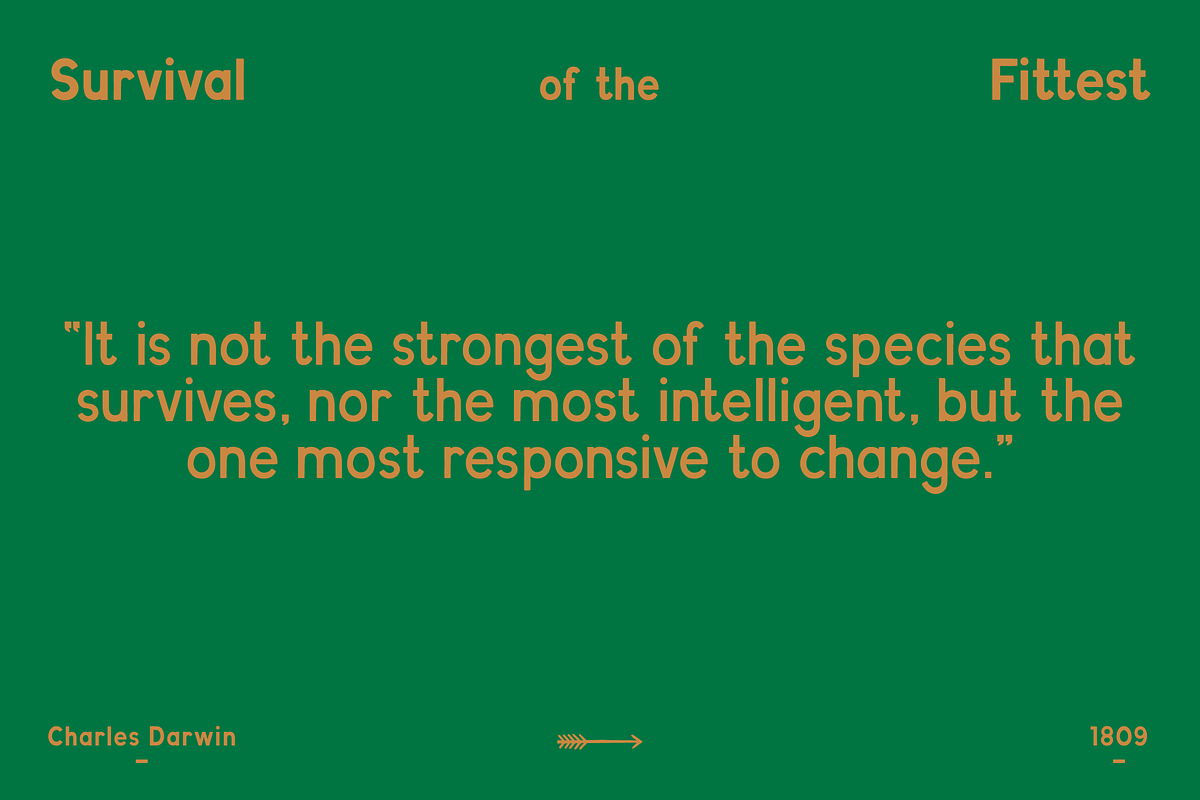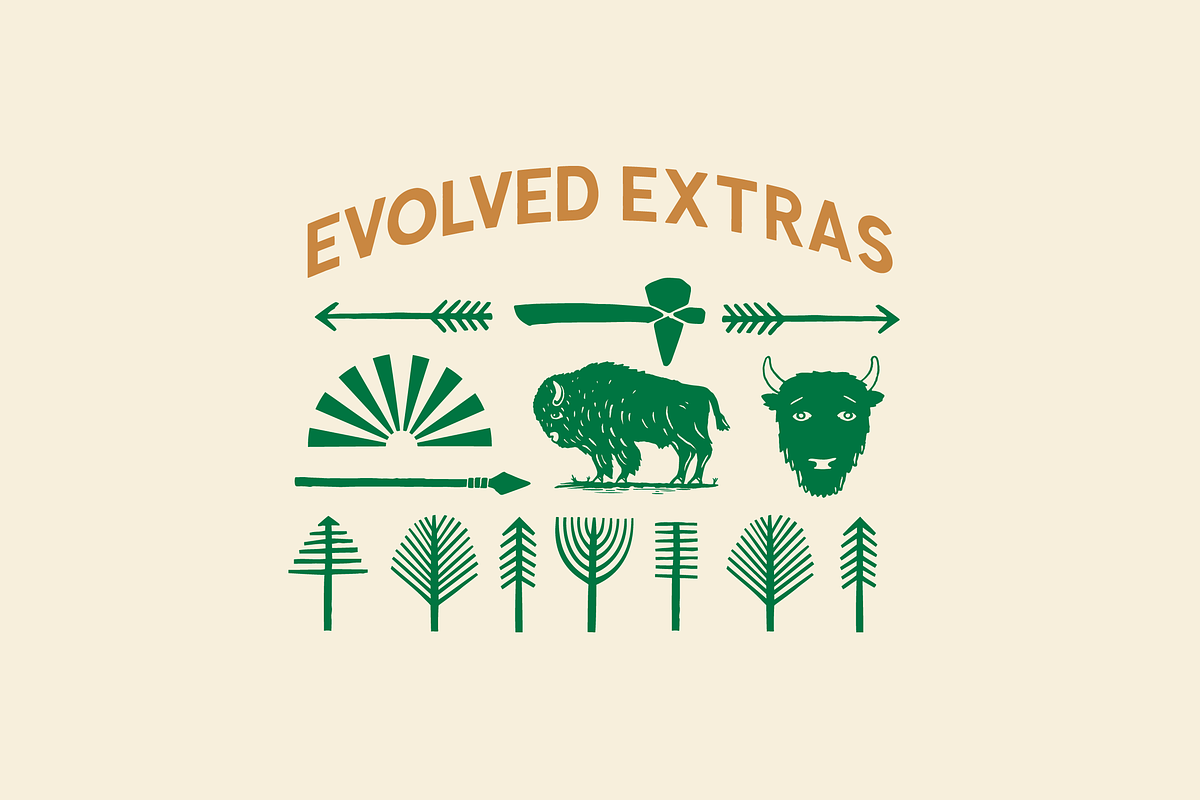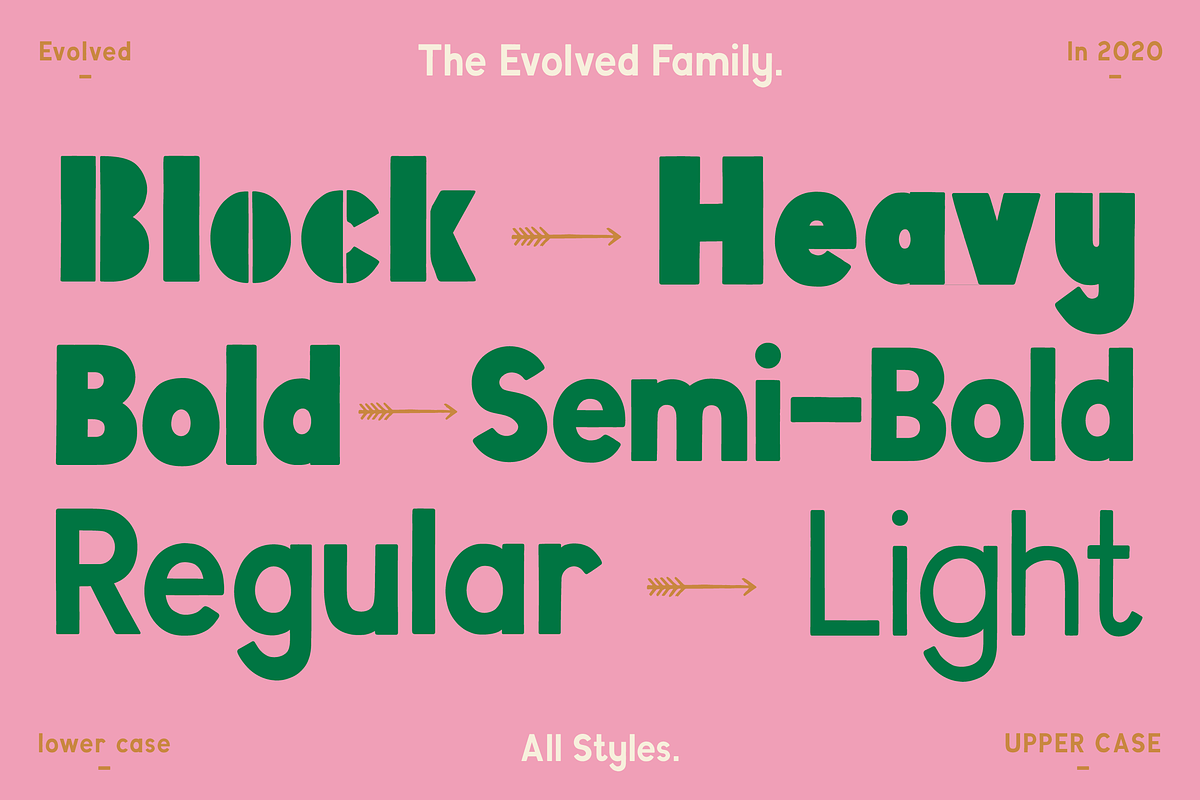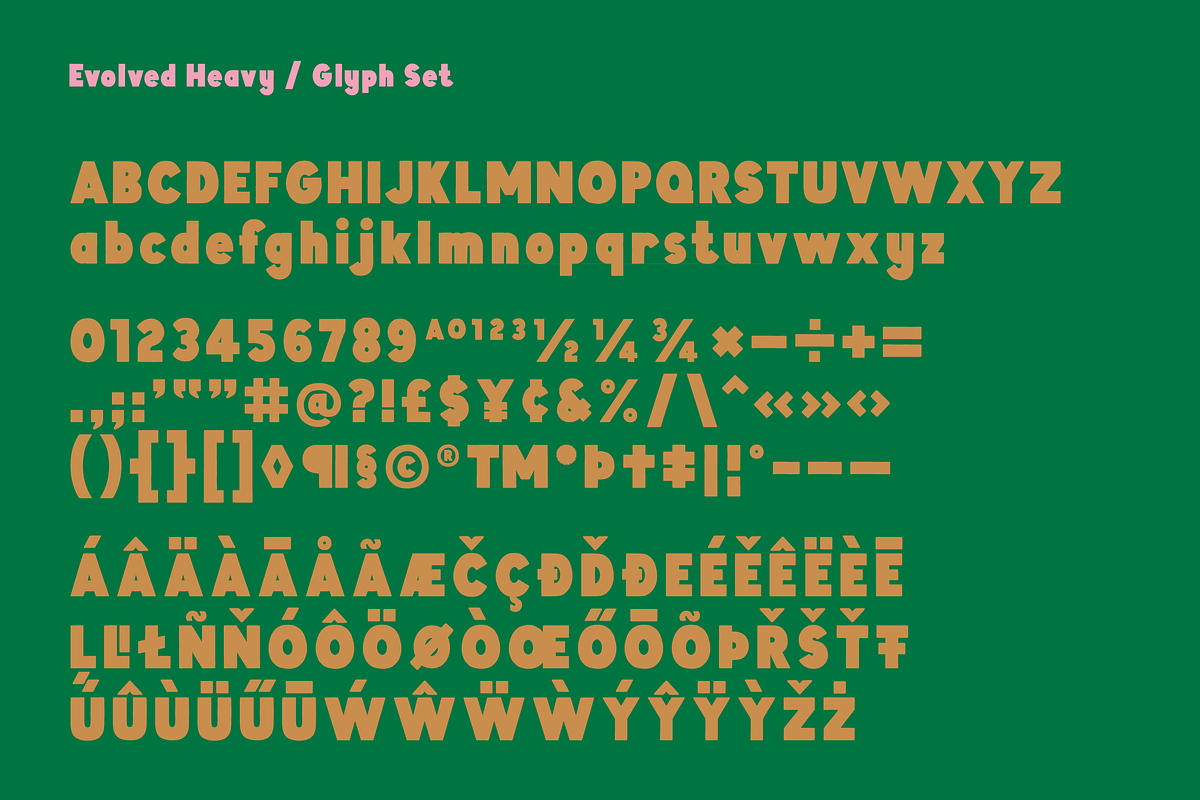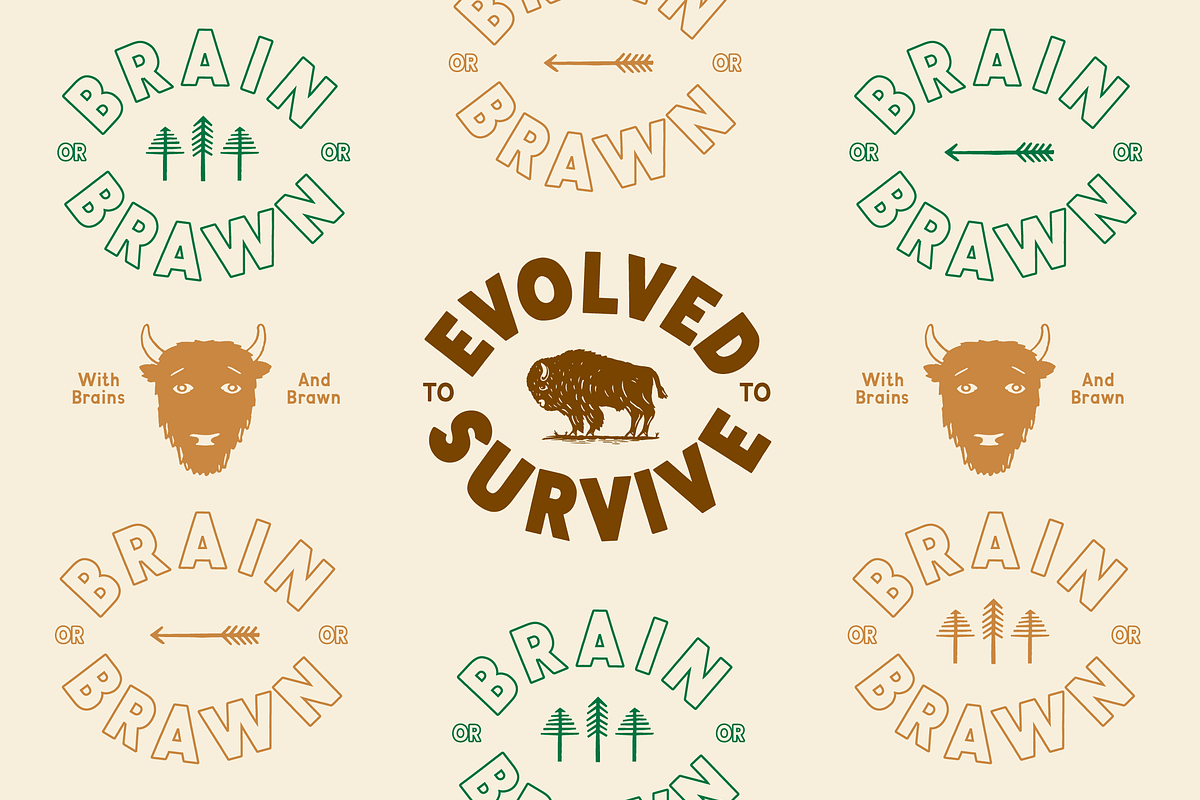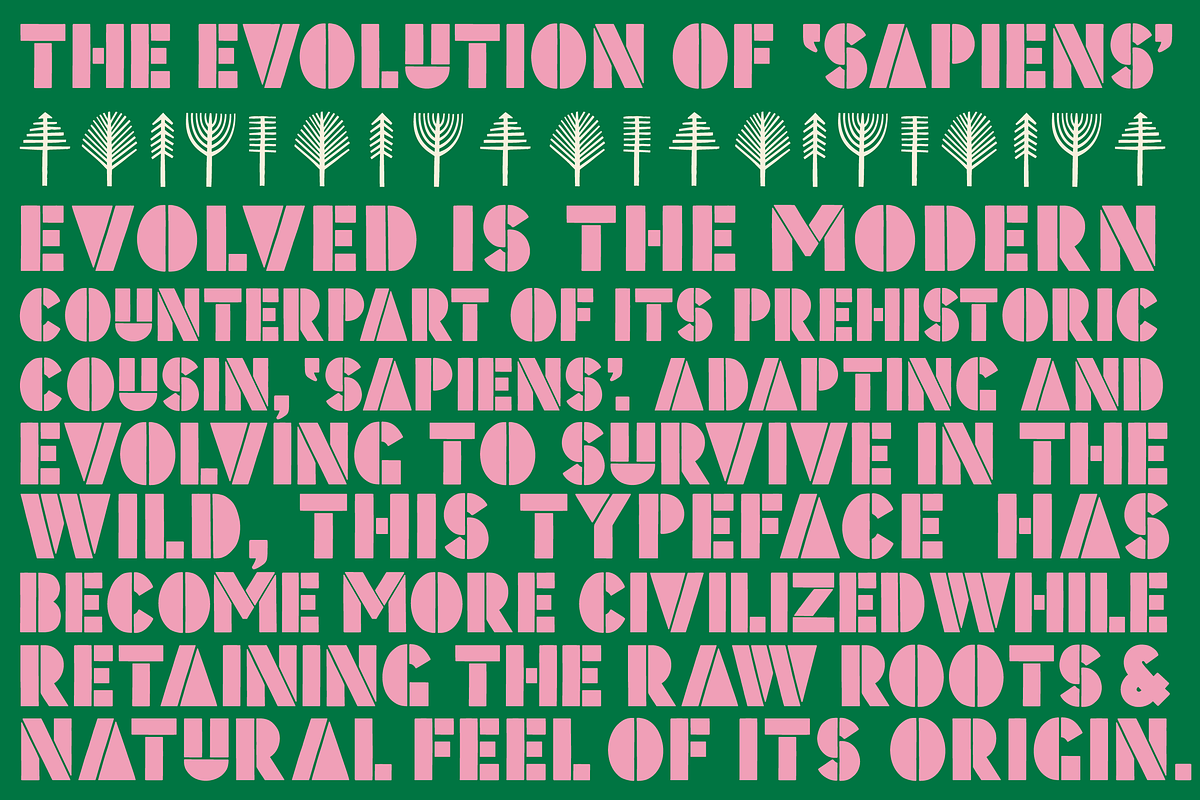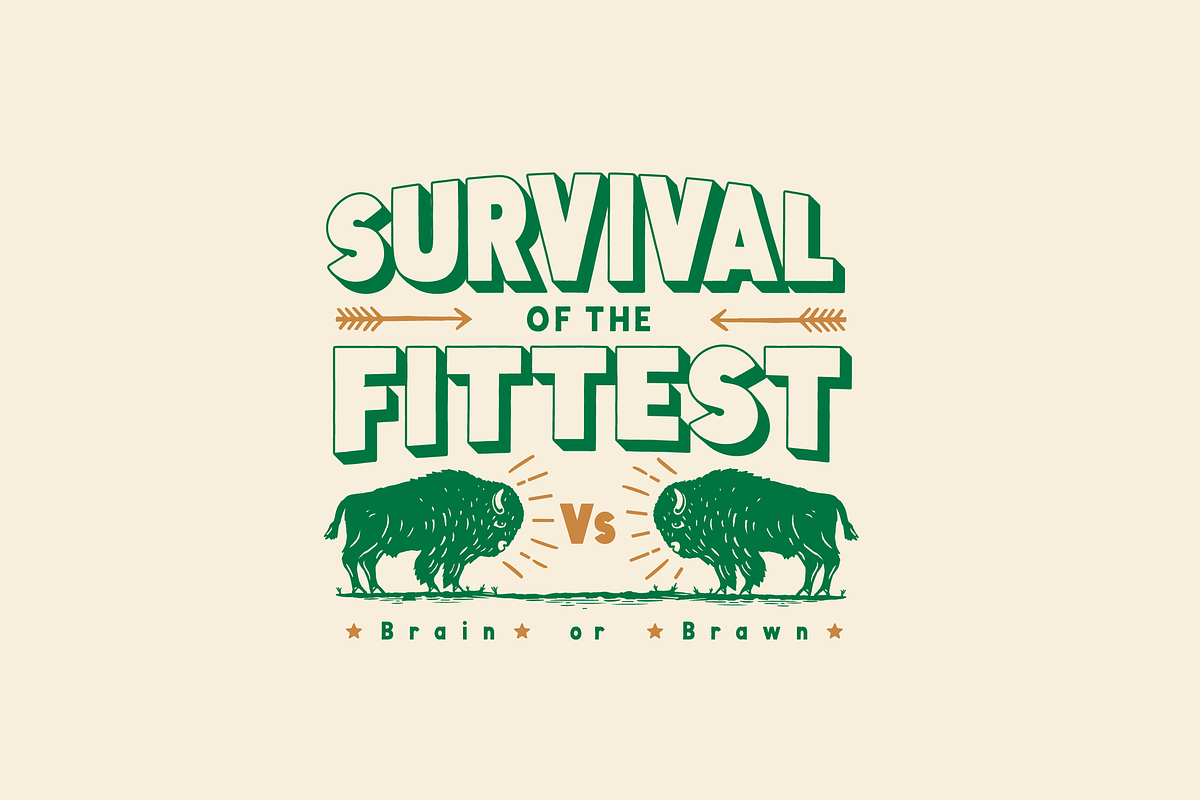
Evolved Font Family
Evolved is the modern counterpart of its prehistoric cousin, ‘Sapiens’. Adapting and evolving to survive in the modern climate, this typeface has become more civilized while retaining natural quirks and imperfections of its origin.
An evolution of Sapiens – Evolved includes 6 styles all with lower case suitable for bulk copy or characterful headlines. This modern font family is also ideal for branding and packaging. Illustration extras and editable design EPS files are included with purchase.
- Evolved Light
- Evolved Regular
- Evolved Semi Bold
- Evolved Bold
- Evolved Heavy
- Evolved Block